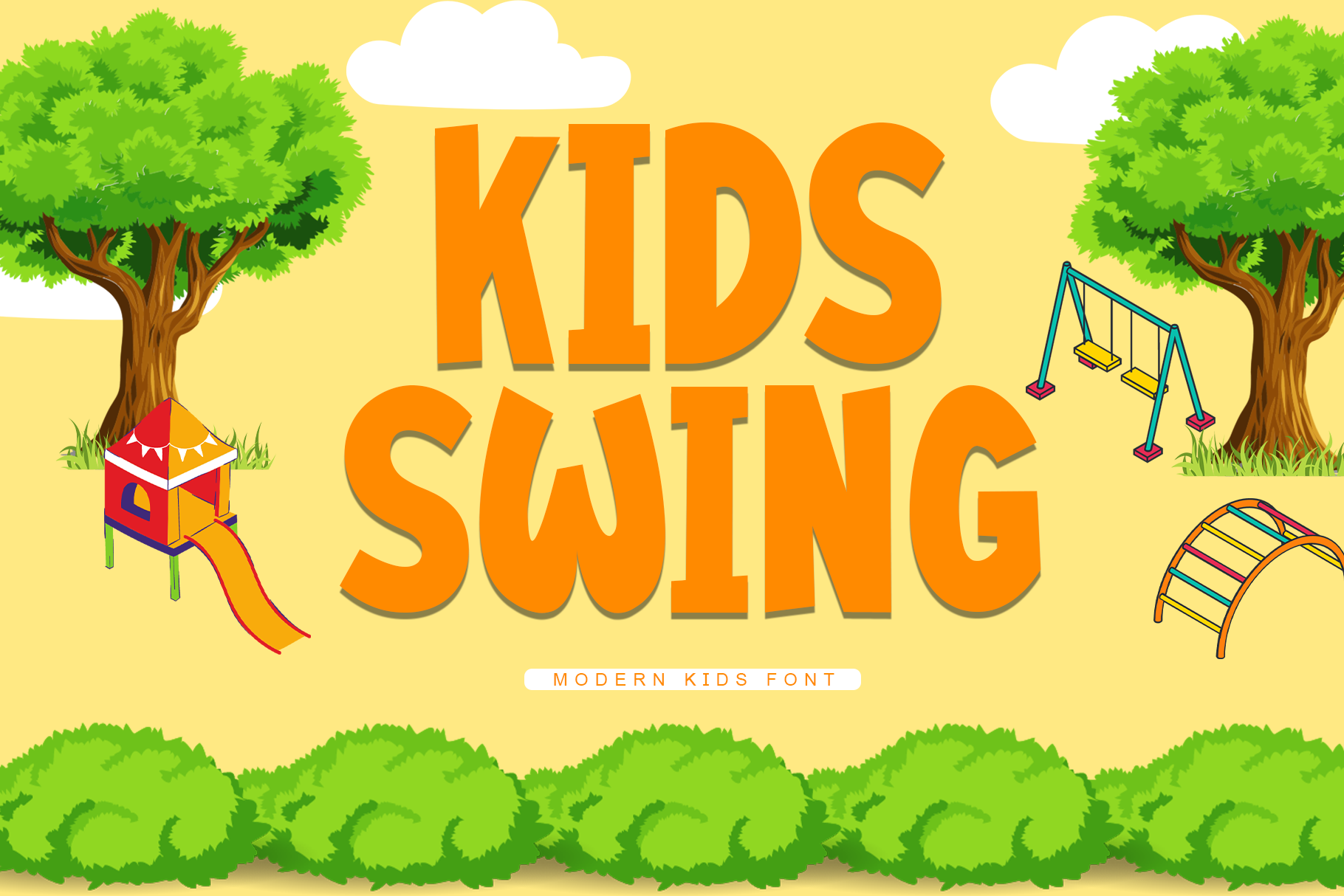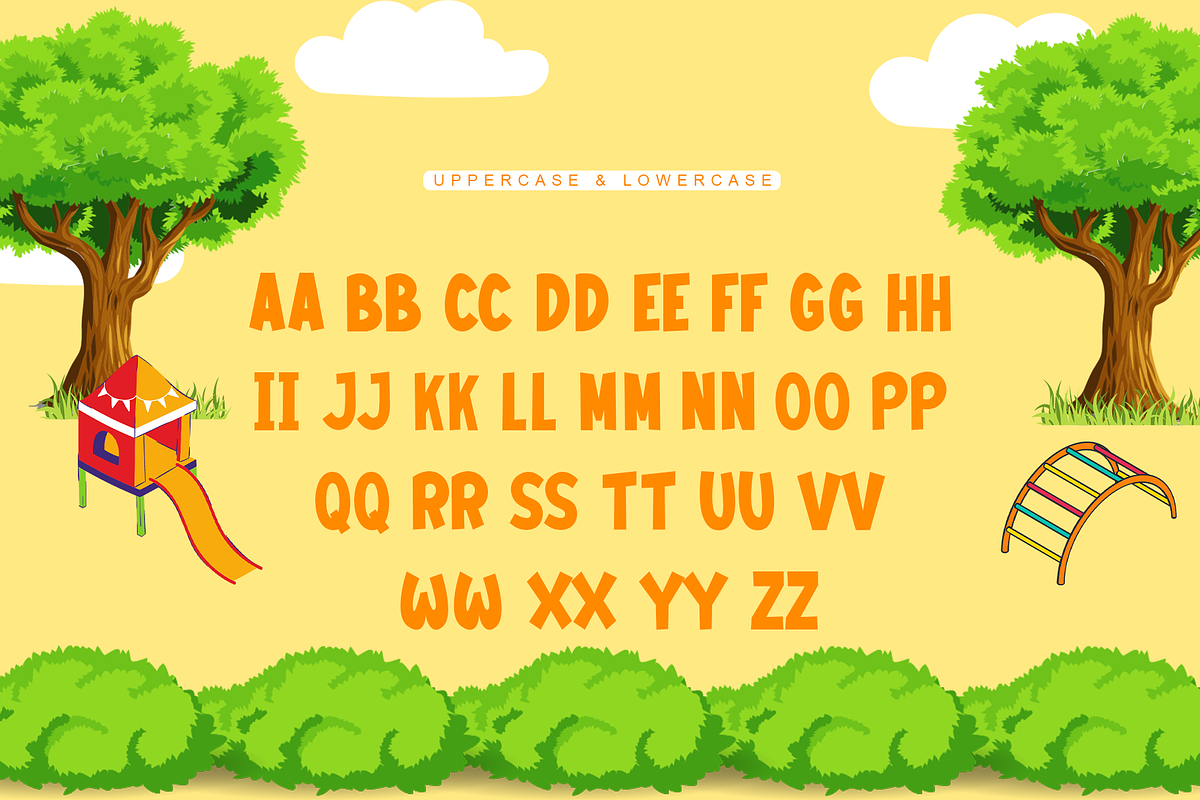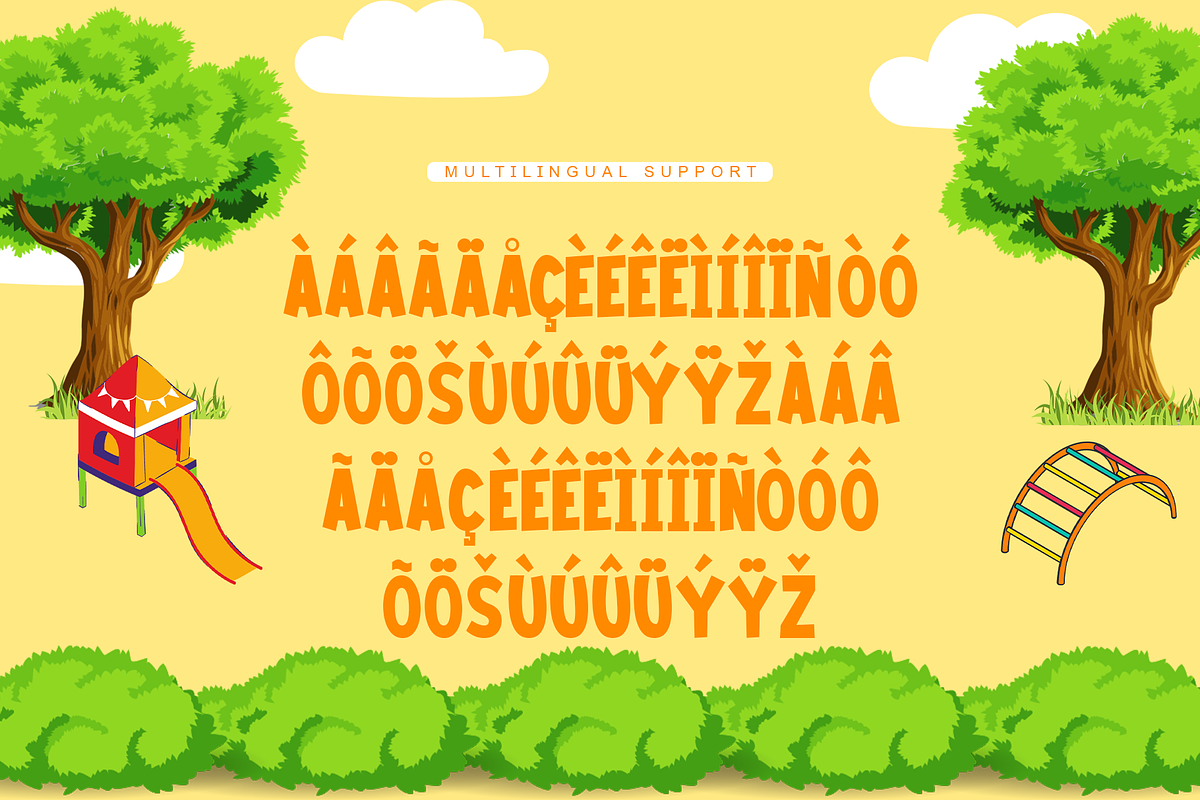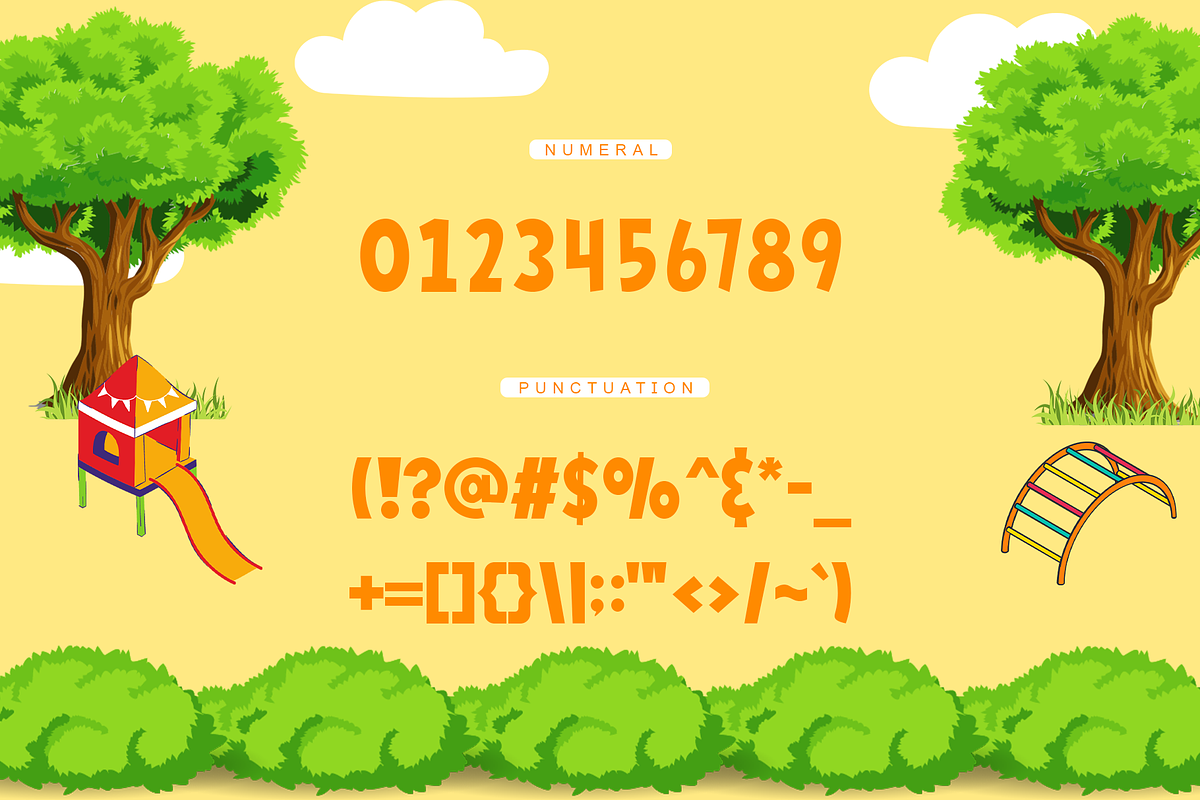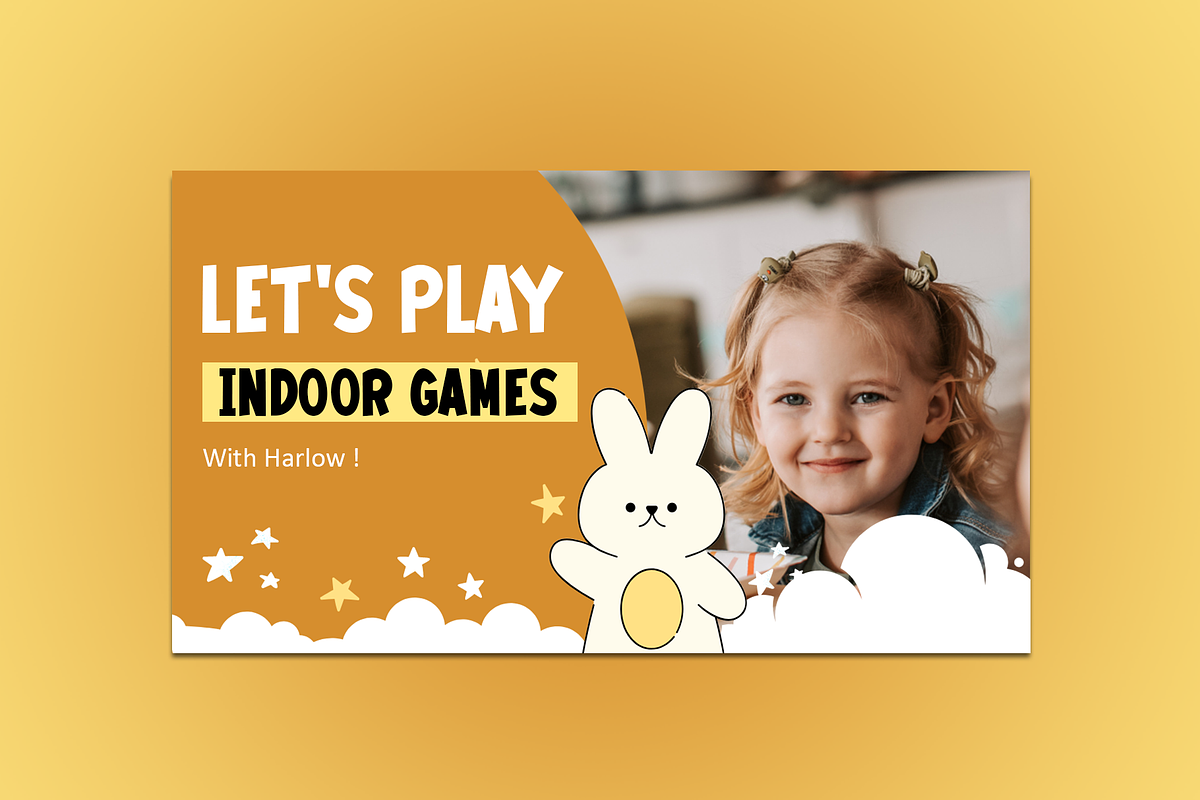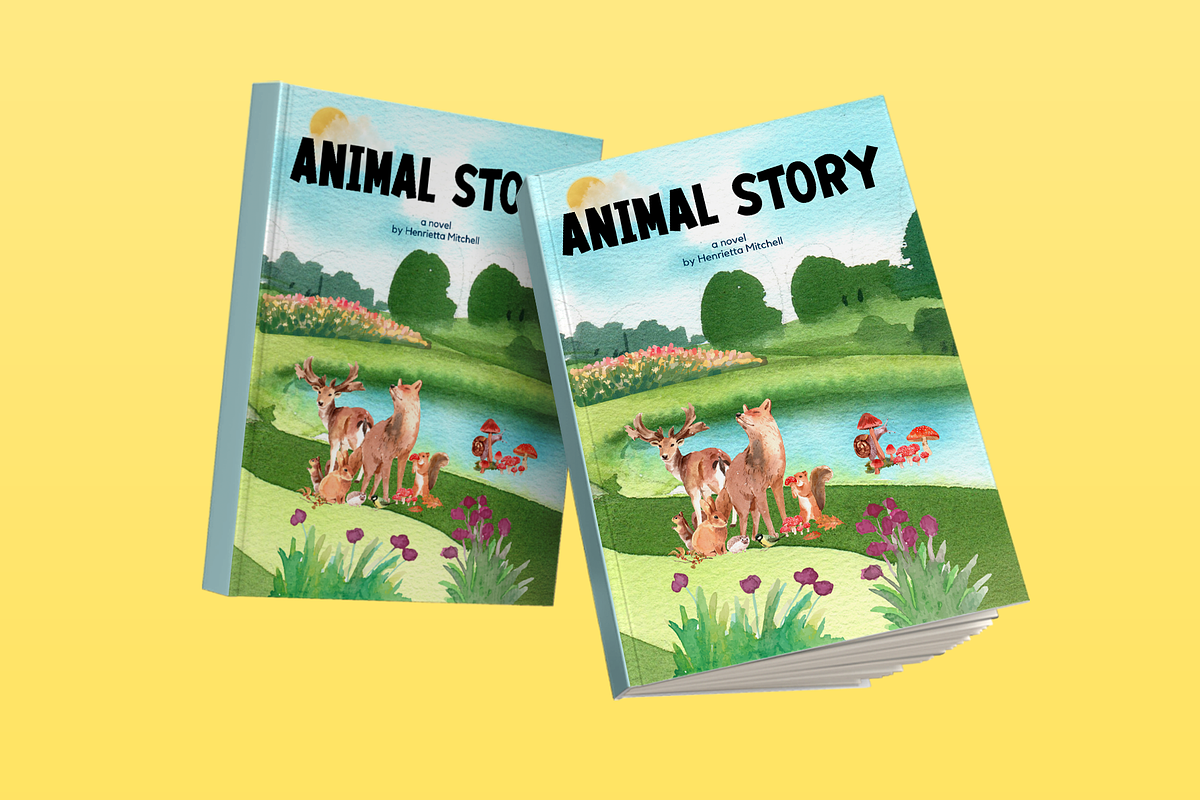
Kids Swing - Modern Sans Kids Font
Introducing "Kids Swing," a modern sans kids font that brings whimsical joy and playful precision to your design projects. Perfect for children's book designers, educators, and creatives looking to captivate young audiences, Kids Swing offers a delightful and lively typeface that sparks imagination and fun.
Ideal for children's books, posters, educational materials, logos, and toy packaging, Kids Swing’s rounded and bouncy characters provide a friendly and engaging aesthetic. Each letter is meticulously designed to ensure readability and visual appeal, making your designs both effective and enchanting.
The "Kids Swing" font includes a complete set of uppercase and lowercase letters, numbers, punctuation marks, and special characters. This versatility allows for seamless integration into various design projects, from vibrant posters to charming storybooks.
Add a touch of whimsy and creativity to your designs with Kids Swing, the modern sans kids font that turns every project into a playful adventure.